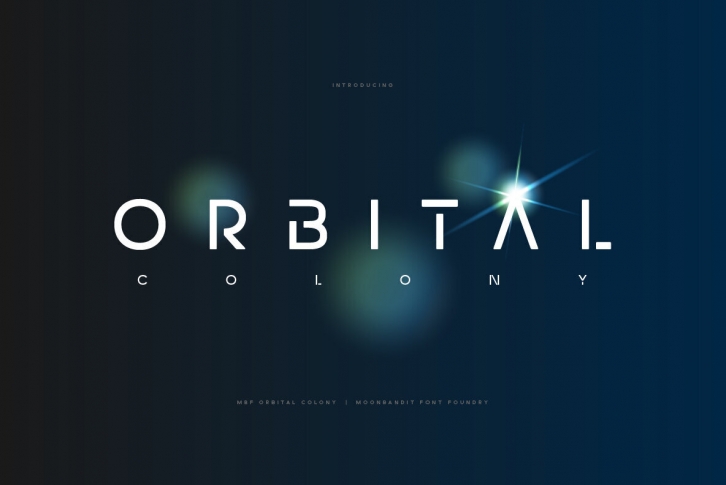
Orbital Colony is a modern futuristic scifi font. This typeface design is perfect for a clean and minimalist design theme. perfect usage includes logo, poster, display, headline, t-shirt design and many more.